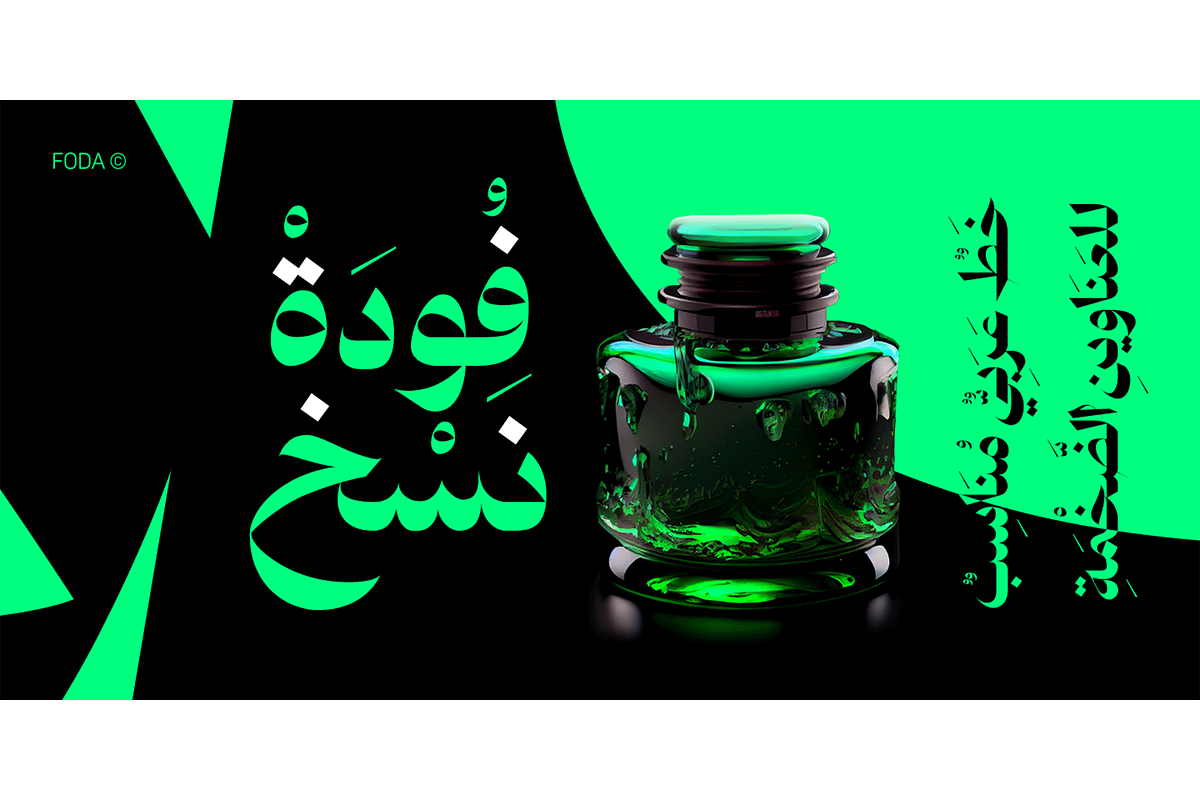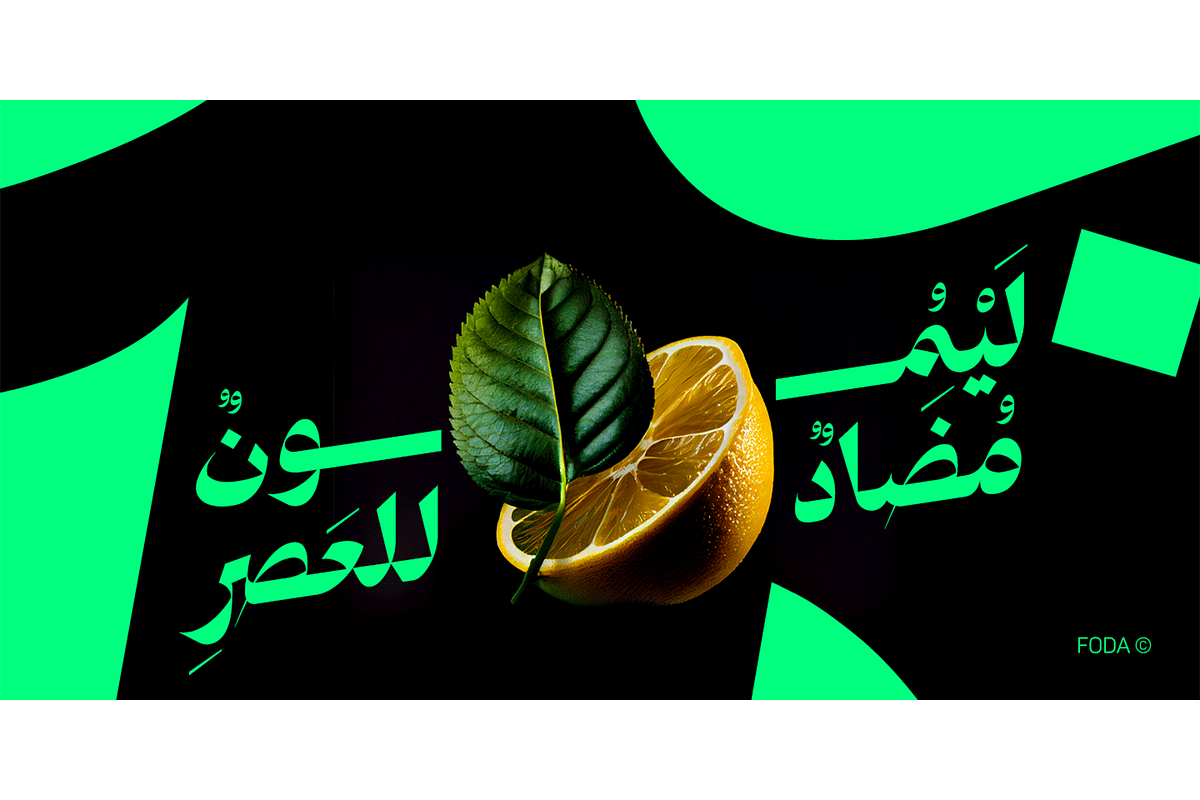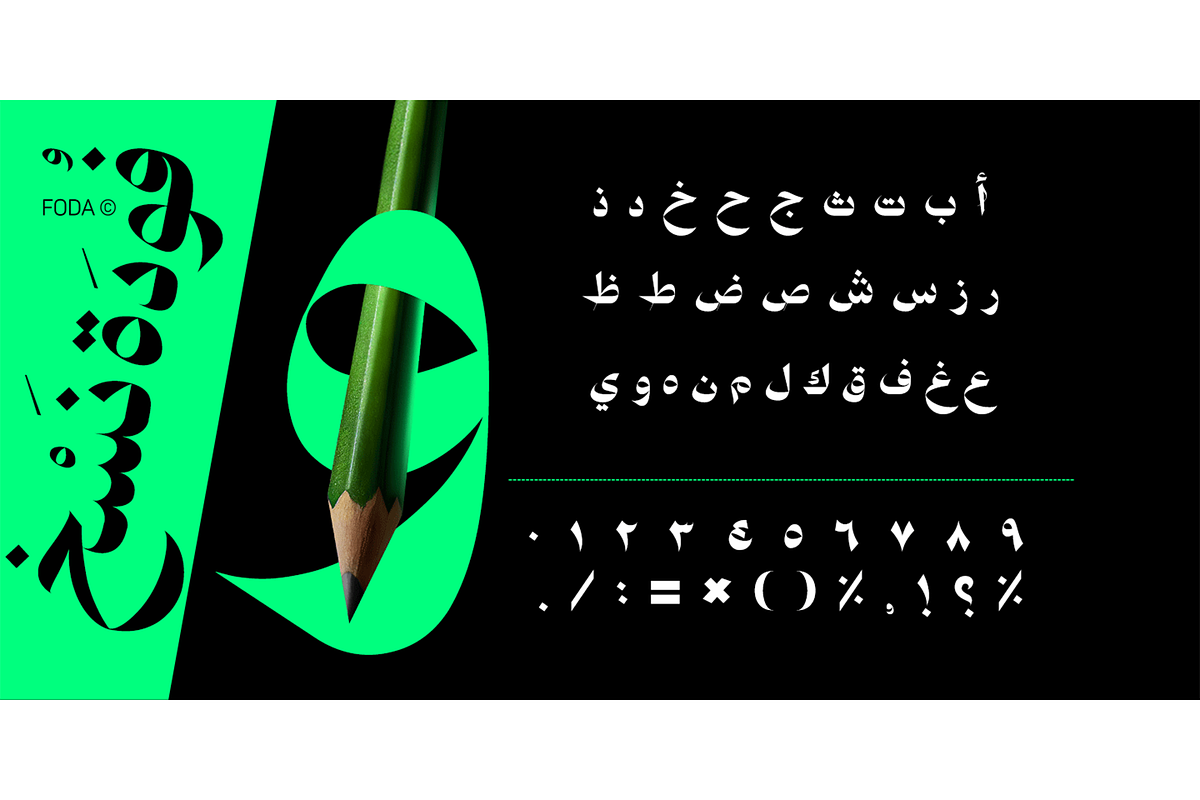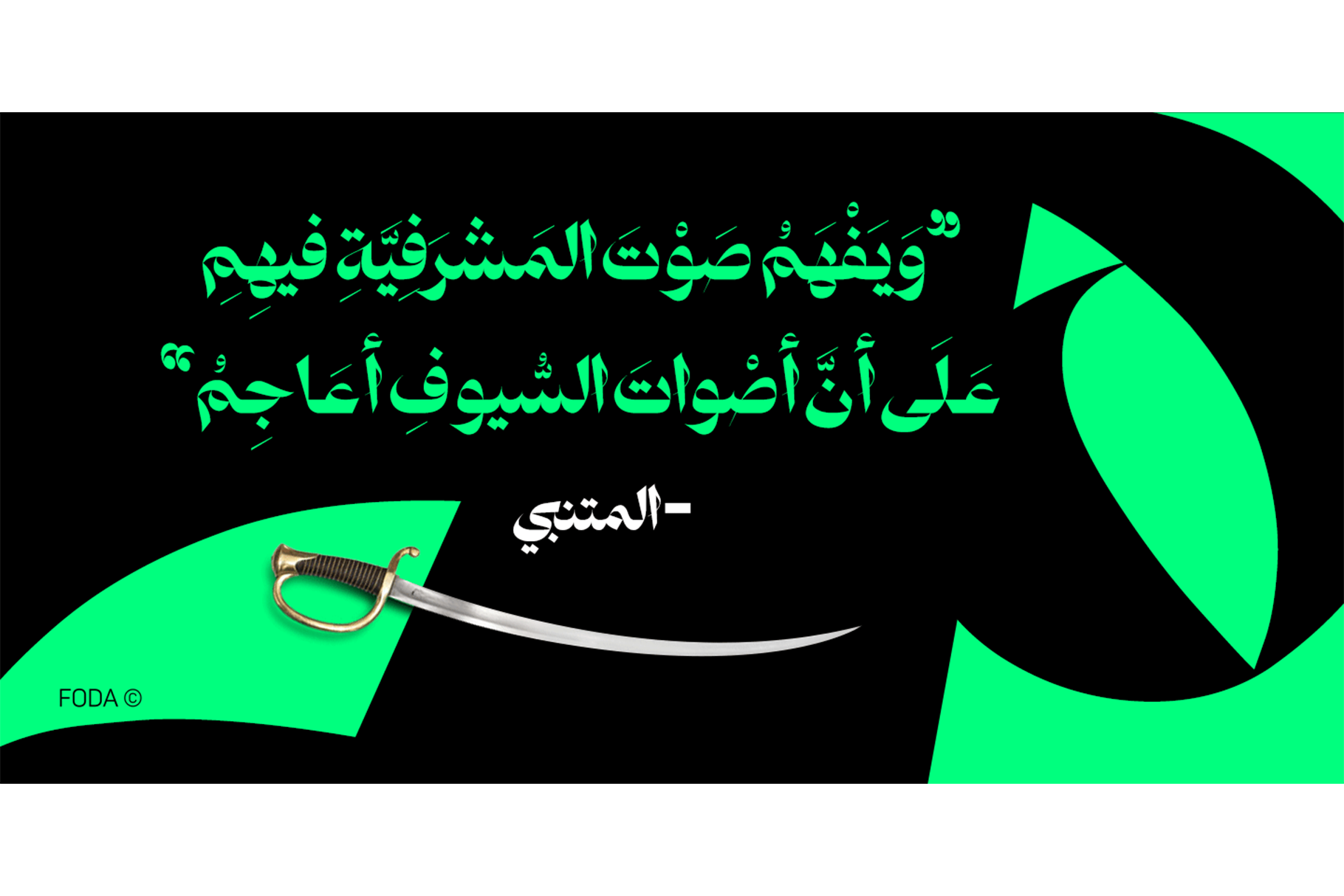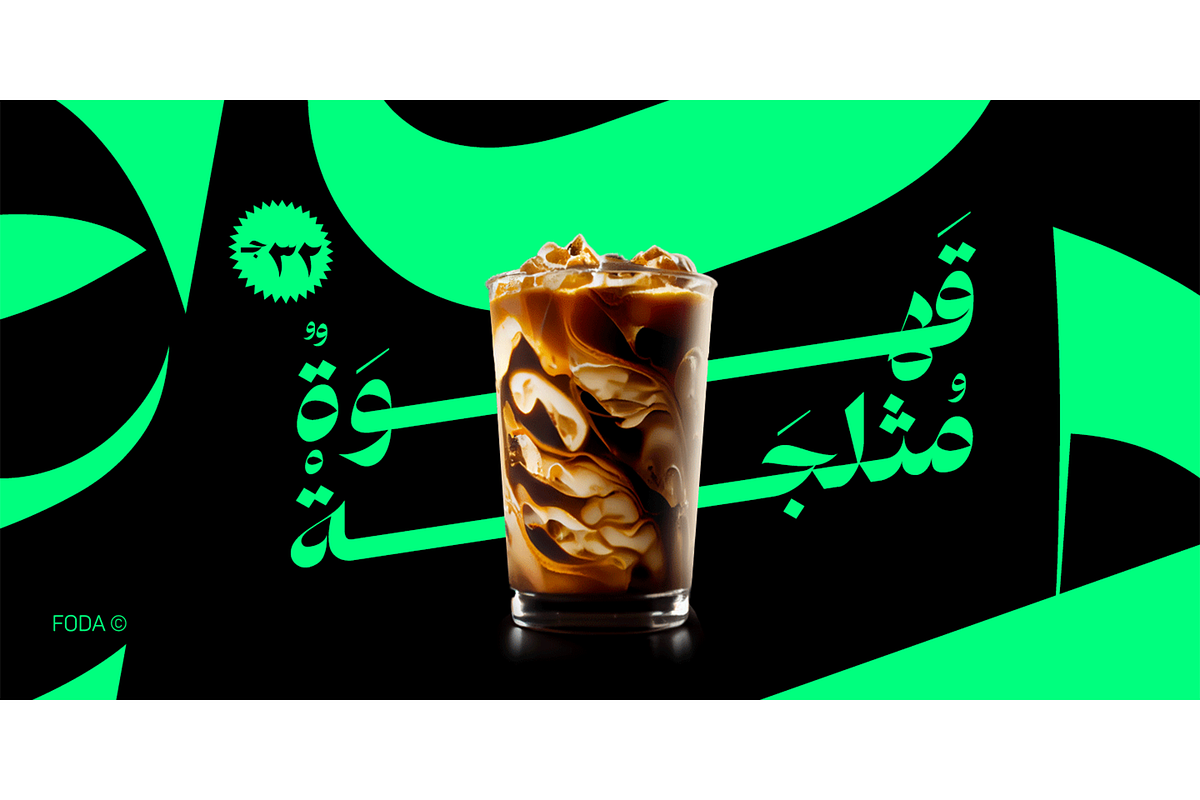
Foda Naskh Font
Foda Naskh is a modern naskh typeface that Combines the originality and modernity, which shows the letters beauty and the ease of reading. Foda Naskh is typical for books, the writing of newspapers, headlines, magazines, poetry, long and short text paragraphs and more.